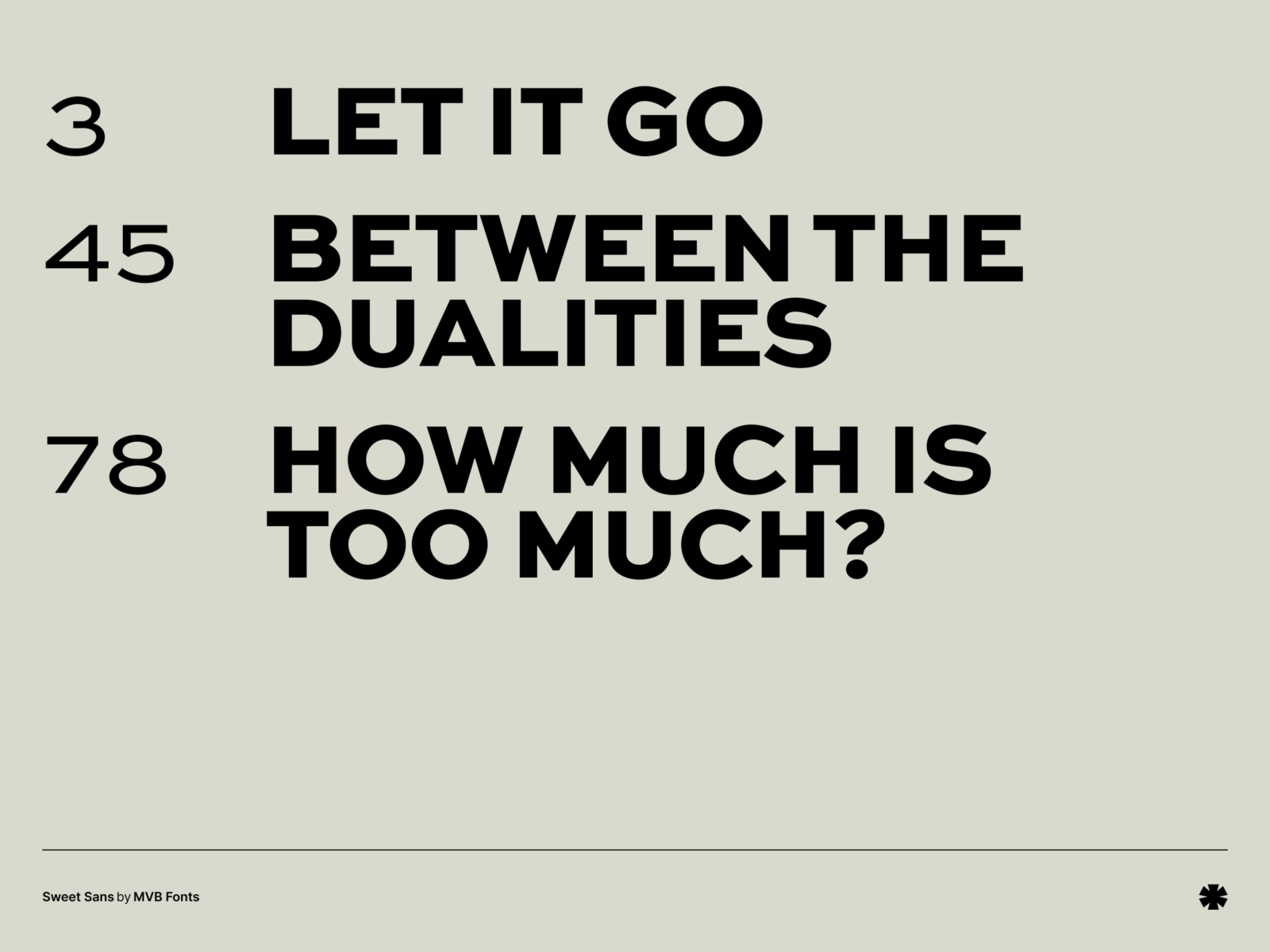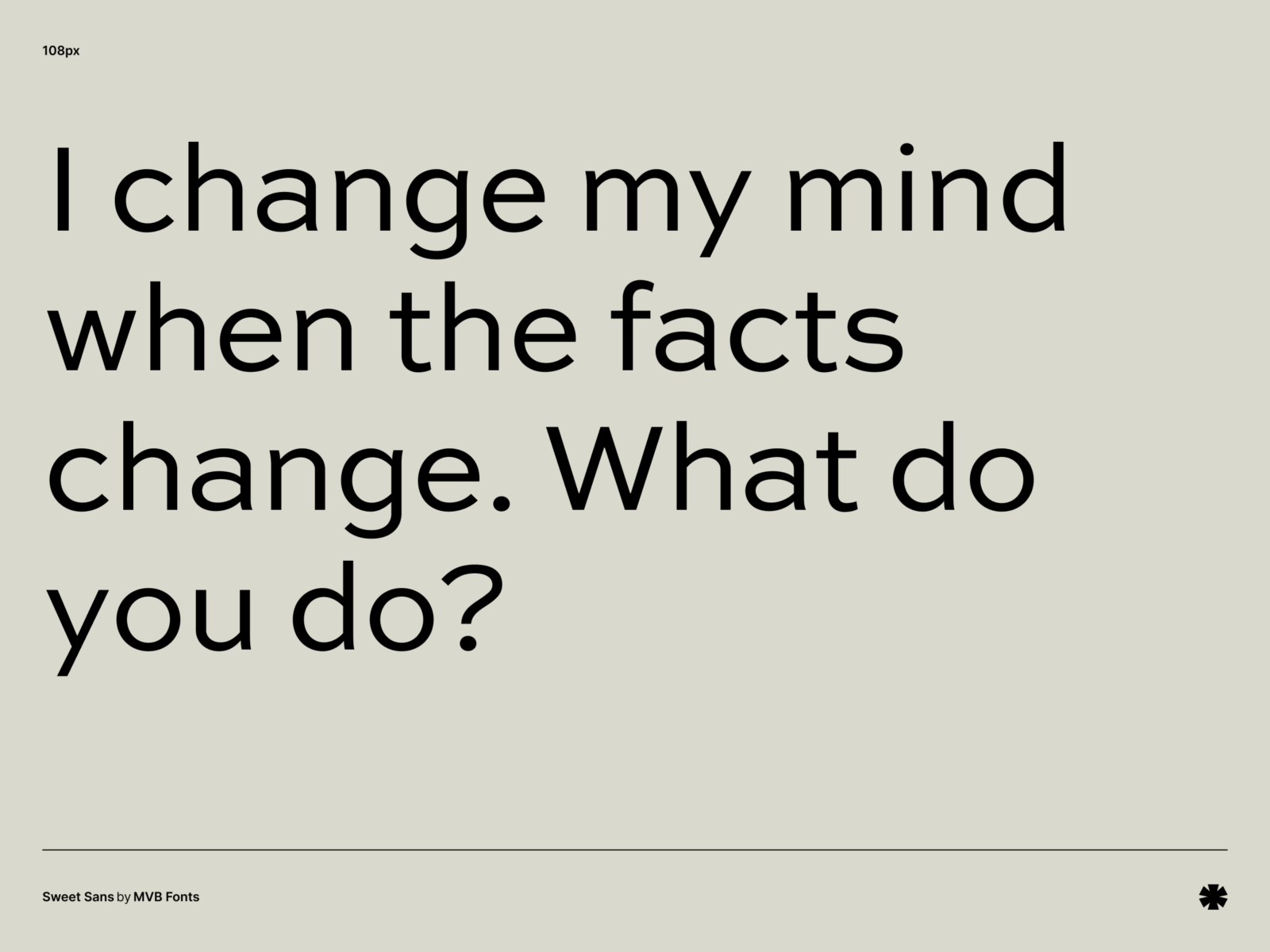
Sweet Sans, designed by Mark van Bronkhorst, is based on the traditional engraver’s sans serif and extremely legible and readable even at small sizes. Sweet Sans is available in a variety of weights and styles.